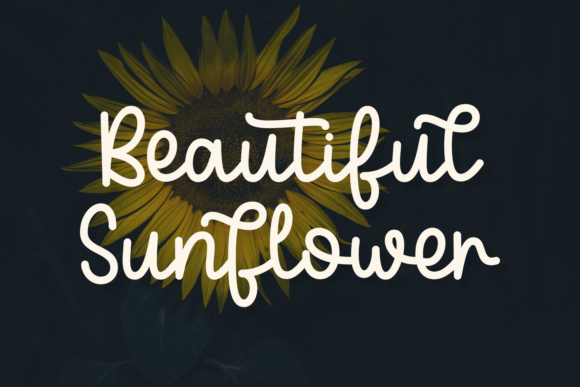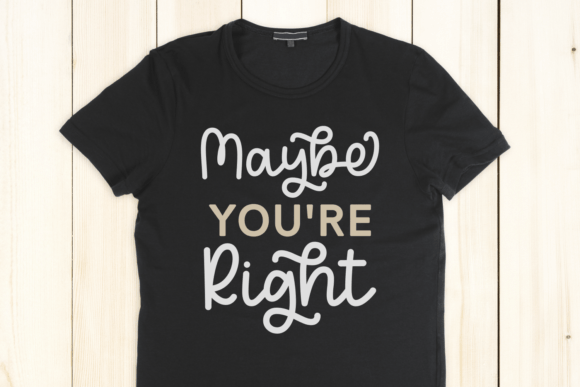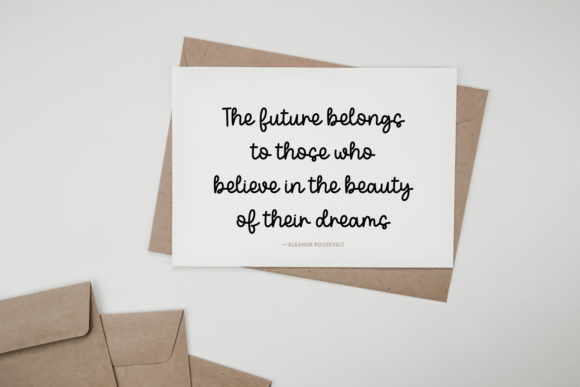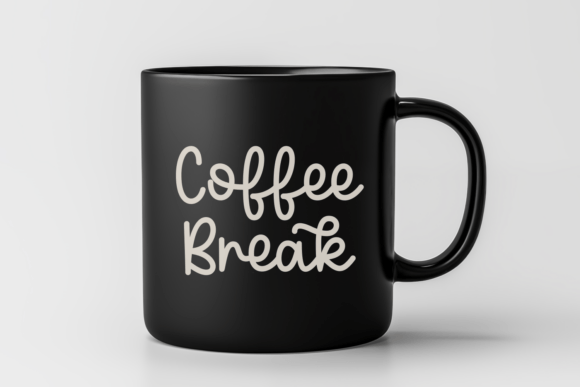
The Perfect Font for the Modern Designer
Have you ever found yourself staring at a blank page, searching for the perfect font to bring your design to life? I know I have. And then it hits you – that elusive combination of style, sophistication, and charm that makes your project truly shine.
Enter the Elegant Women Font, a bold handwritten font that exudes elegance and refinement. This stunning font is designed to capture the essence of luxury and femininity, making it perfect for invitations, branding, and any project that calls for a touch of high-end style. With its flowing letters and delicate curves, the Elegant Women Font adds a touch of whimsy and sophistication to any design, making it a valuable addition to any designer’s toolkit.
Whether you’re working on a high-end fashion campaign or a romantic wedding invitation, the Elegant Women Font is sure to impress. Its versatility and charm make it a must-have for any designer looking to elevate their projects to the next level.
Elegant Women Font Key Features
- Font Family: Elegant Women Font
- Unique Characteristics: Includes elegant, cursive, and handwritten styles, making it ideal for creative and design-oriented projects.
Elegant Women Font Review
As a designer, I was excited to dive into the Elegant Women Font, and overall, it’s a beautiful and elegant addition to any design project. ✨ Here are some of its standout features:
- Legibility: The font is highly legible, making it perfect for body text and larger blocks of content.
- Flexibility: Elegant Women Font is incredibly versatile and can be used for a variety of design projects, from invitations to editorial content.
- Uniqueness: The font has a unique and feminine touch, which can add a touch of sophistication to any design.
However, as with any font, there are some limitations. ⚠️ Here are a few things to keep in mind:
- Readability at small sizes: While the font is legible at larger sizes, it can become a bit challenging to read at very small sizes.
- Lack of italics: The font does not include italics, which can make it a bit more difficult to create emphasis in text.
Overall, I would say that Elegant Women Font is a beautiful and elegant addition to any design project. While it may have some limitations, its versatility and uniqueness make it a great choice for a variety of design applications.
Getting the Most Out of It
To get the most out of the Elegant Women Font, try the following tips:
- Use it sparingly to add a touch of elegance to your designs.
- Pair it with a bold font for contrast and visual interest.
- Experiment with different font sizes and styles to create a unique look.
The Elegant Women Font is perfect for: